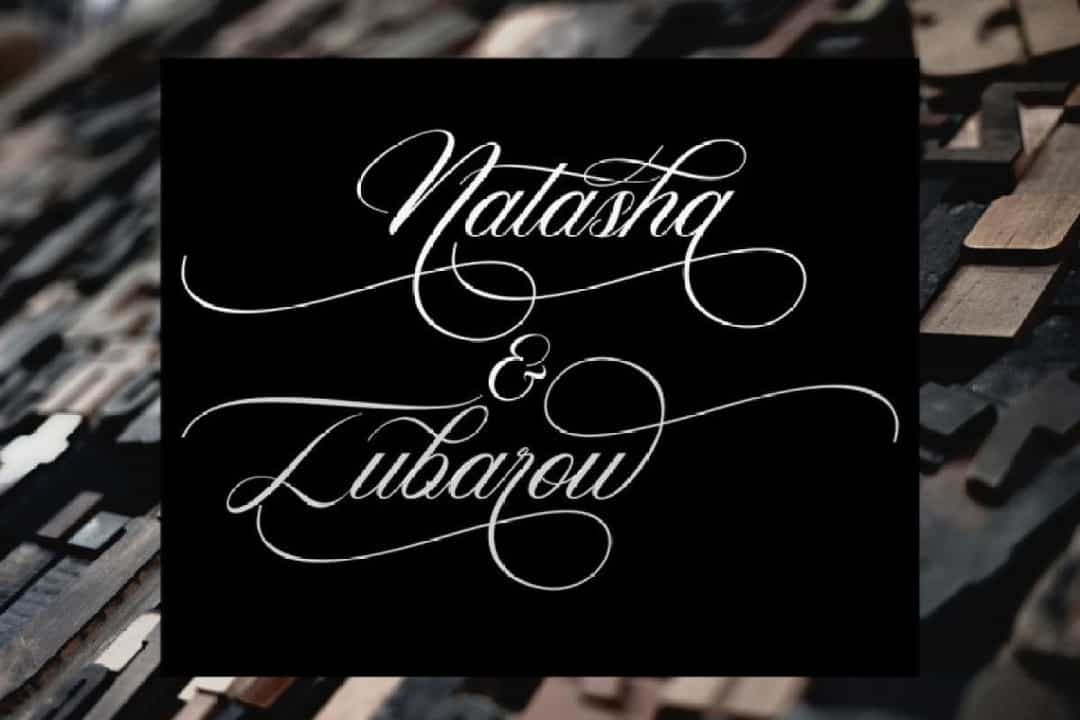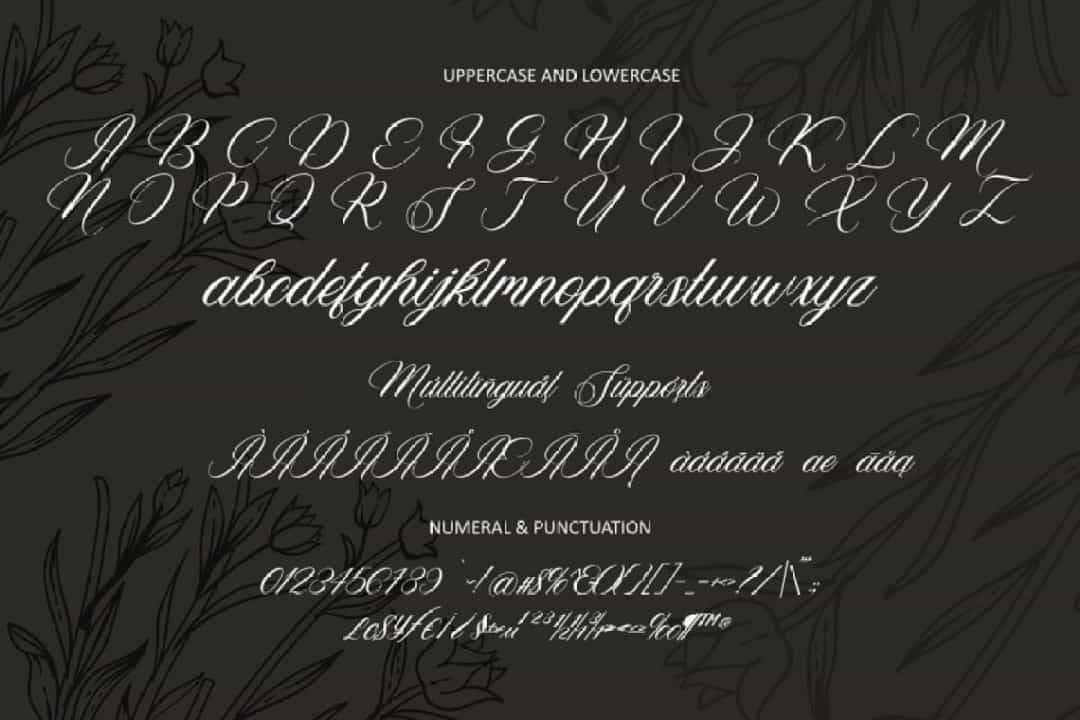
Vagentha Calligraphy is an elegant and romantic calligraphy script font featuring characters that move along its base, adding luxurious sparkle to any design you create! Use it in place of traditional fonts for maximum impact!